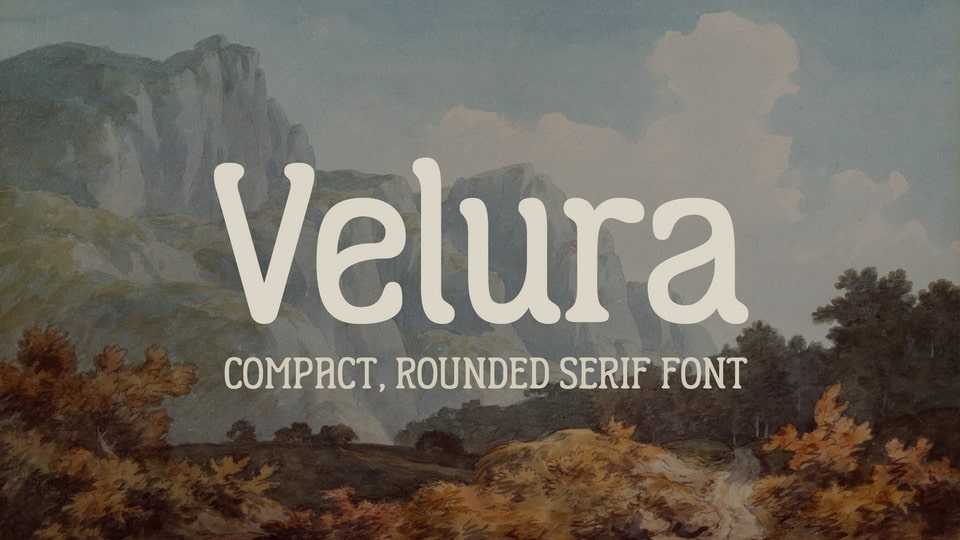
Download Velura font, a compact serif typeface with a tall x-height designed to inspire creativity at both display and smaller sizes. It is characterized by its unique rounded ‘antenna-like’ serifs and distinct approaches to letterforms.